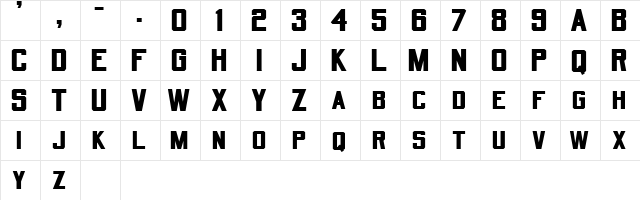
Quarterback Regular
Design Context for Quarterback Typeface
Quarterback takes a measured approach to typography — its balanced proportions and neutral character make it a reliable workhorse for both digital and print work.